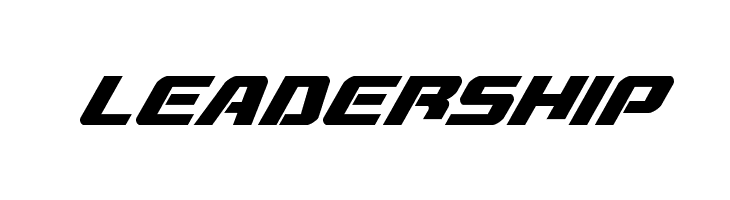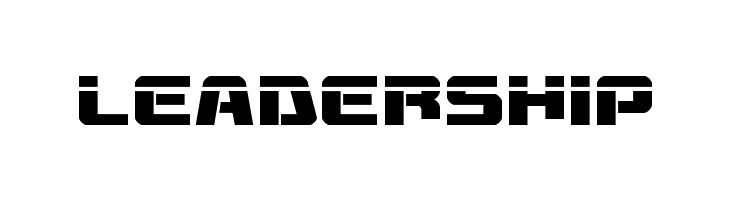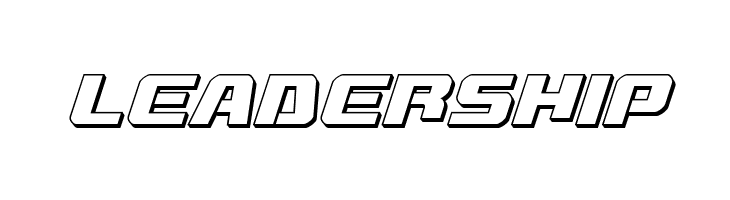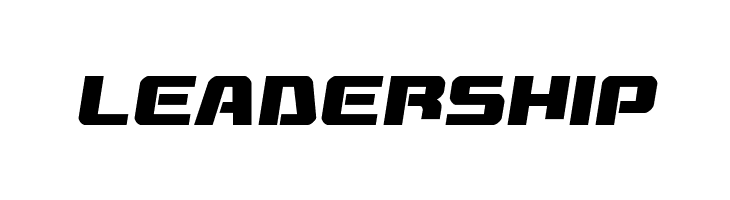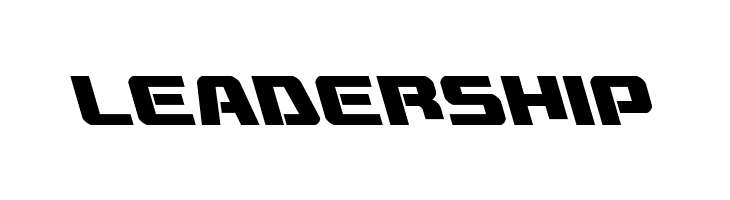
• Livewired
• Livewired 3D
A bold, 3D outlined font with a futuristic and digital aesthetic.
• Livewired 3D Italic
A bold, 3D italic font with a futuristic and dynamic style.
• Livewired Academy
A bold, geometric font with a three-dimensional outlined effect.
• Livewired Academy Italic
A bold, italicized font with a modern, futuristic style and outlined characters.
• Livewired Chrome
A futuristic, layered font with a three-dimensional, digital aesthetic.
• Livewired Chrome Italic
A bold, italicized font with a futuristic striped design.
• Livewired Condensed
A bold, geometric, and condensed font with a modern, futuristic style.
• Livewired Condensed Italic
A bold, condensed italic font with a modern, angular design.
• Livewired Expanded
A bold, futuristic font with wide, geometric characters and a modern aesthetic.
• Livewired Expanded Italic
A bold, italic, and futuristic font with sharp angles and high contrast.
• Livewired Gradient
A futuristic, tech-inspired font with a bold, gradient line pattern.
• Livewired Gradient Italic
A futuristic, italicized font with a gradient effect and striped pattern.
• Livewired Halftone
A bold, futuristic font with a halftone effect and geometric design.
• Livewired Halftone Italic
A bold, italicized font with a halftone pattern, exuding a futuristic and dynamic style.
• Livewired Italic
A bold, italicized font with a futuristic and sporty design.
• Livewired Laser
A bold, futuristic font with geometric shapes and sharp angles.
• Livewired Laser Italic
• Livewired Leftalic
A bold, futuristic font with a dynamic slant and geometric design.
• Livewired Outline
A bold, geometric outline font with a futuristic and digital aesthetic.
• Livewired Outline Italic
A bold, futuristic outline font with an italic slant and sharp, clean lines.